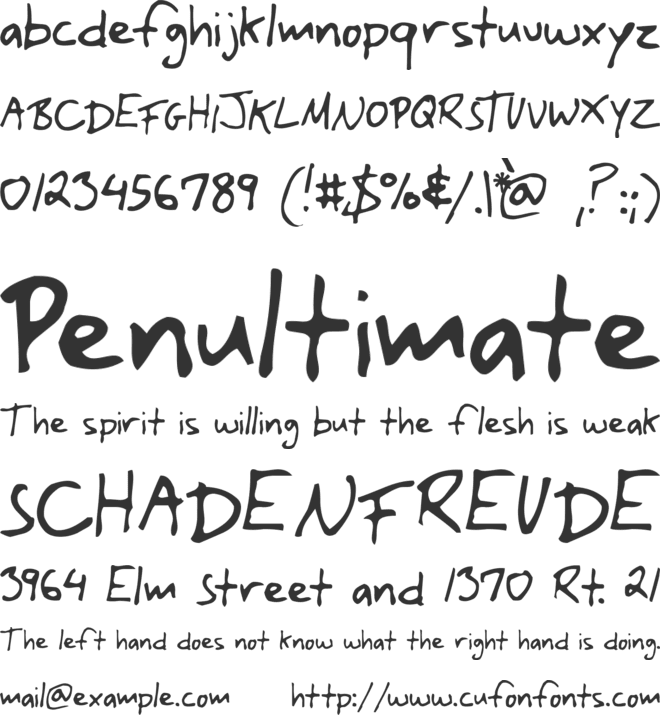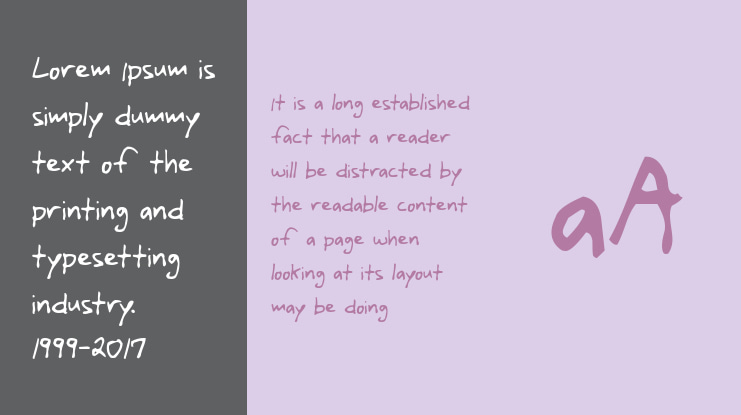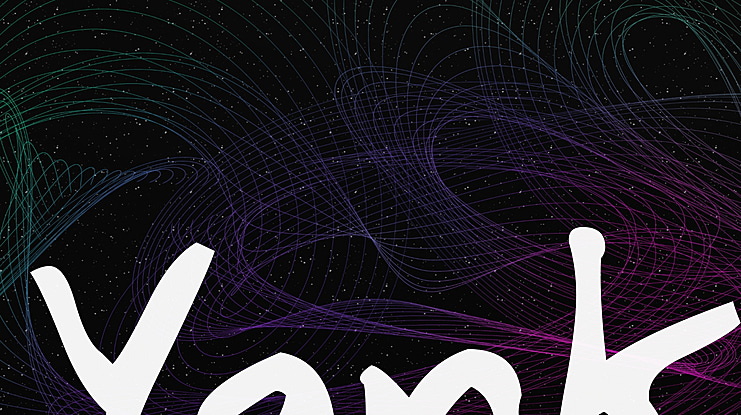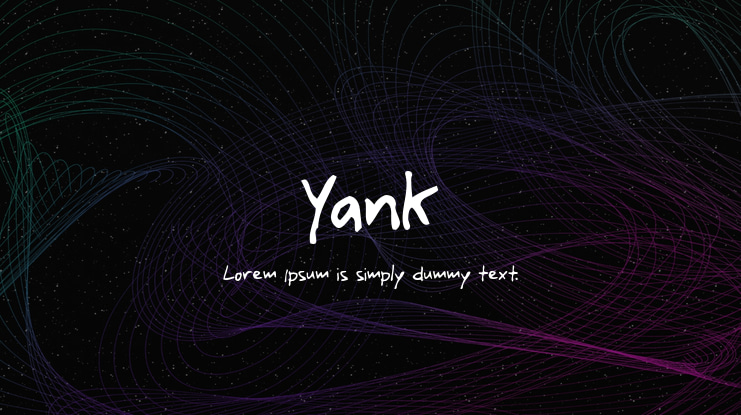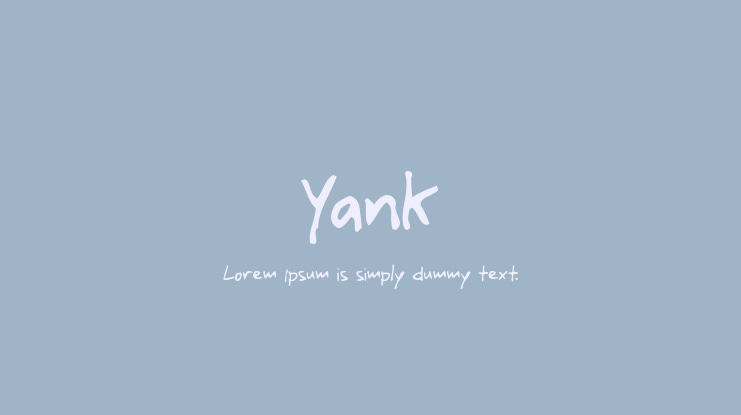
Yank Font
This is a font I've been meaning to make for a while, and the bug finally bit. Really, it bit a long time ago, and the result was Lunatic, my first-ever for-real whole-darn-keyboard set font. I made Lunatic with no idea what I was doing, and it came out pretty nice . . . But also a little wonky (hence the title I gave it). At any rate, Lunatic is still a favorite, and it was good enough to satisfy me then.Later on, I made Newfie (you can find all these on the Fontworks, by the way), a more serious, lessons-learned-and-applied handwriting font based on my wife's own hand. Sandra's a Newfie, so I called it that.In Newfoundland, they call Americans "yanks." So now, I have a proper "his" font to match Sandra's "hers" font . . . a serious, lessons-learned-and-applied handwriting font, a slightly more sober cousin to Lunatic.Sadly, my "sane" handwriting isn't much more legible than my lunatic handwriting, but this font is as close to the Real Deal as I can make it. It's a full keyboard set, with a couple of extras, and lots of hand-guided kerning. Enjoy.If you're interested in licensing this font for public or organizational use, email me at  (mailto:) and be sure to specify the font's title. I'll respond with instructions.